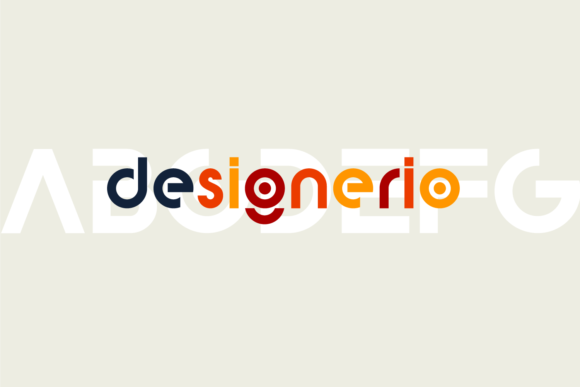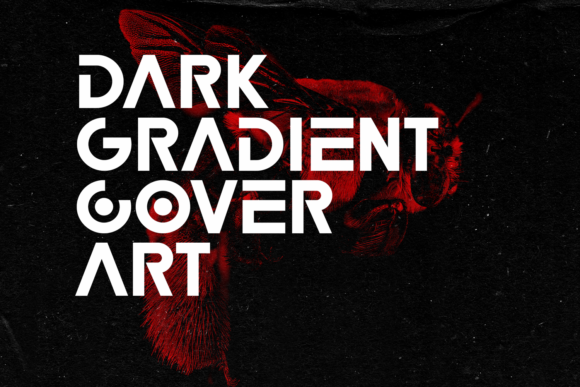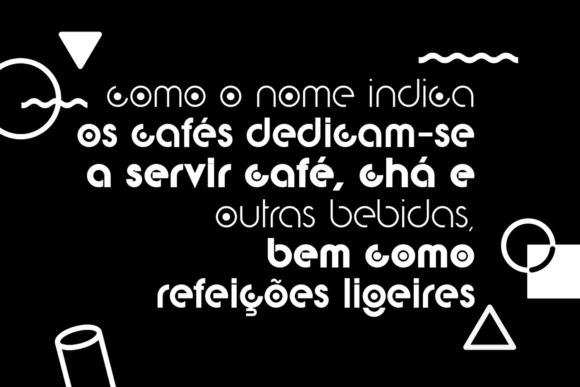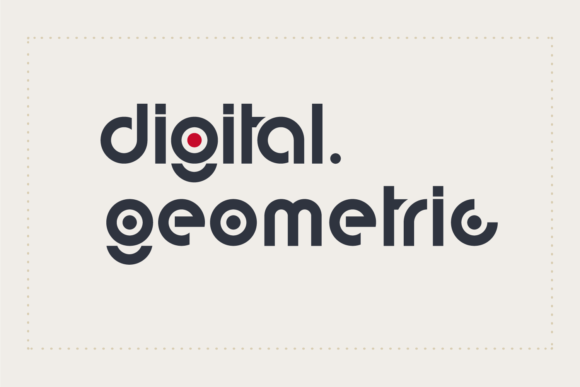
Introduction to Digital Geometric Font
Digital Geometric is a cool, unique and assertive display font.
This font is ideal for writing web designs, business cards, or pretty much anything else that requires a techno touch .
Why Choose Digital Geometric Font?
Digital Geometric Font offers exceptional quality and versatility, making it a valuable addition to your design toolkit. Whether you’re creating for personal projects or commercial use, Digital Geometric Font delivers professional results.